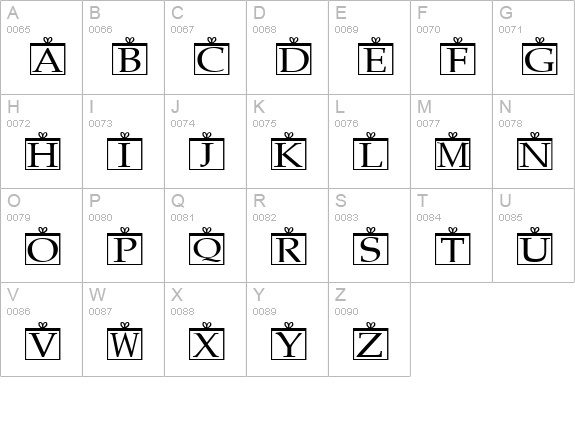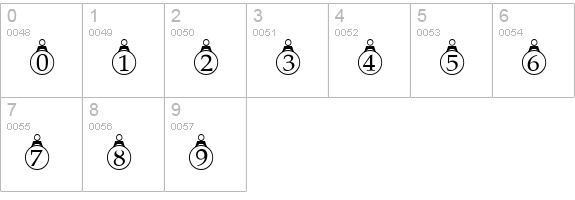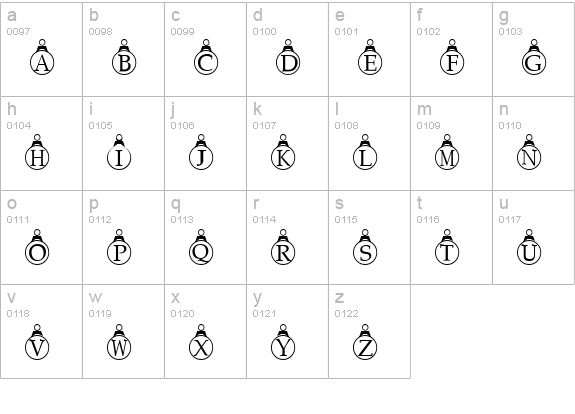
Christmas Ornaments Regular Font Details
Christmas Ornaments Regular is the standard, neutral variant in the Christmas typeface family \xE2\x80\x94 well suited to general body text, paragraphs, and standard typographic work.
Add a touch of festive cheer to your designs with Christmas Ornaments Regular font! This delightful font features a collection of charming holiday-themed ornaments, perfect for adding a whimsical flair to your projects. From jolly Santas to twinkling snowflakes, this font has everything you need to make your designs merry and bright. Best of all, Christmas Ornaments Regular font is completely free to download at FontsMarket.com. Simply head over to the website to get your hands on this festive font and start spreading the holiday spirit in your designs today. Whether you're creating holiday cards, invitations, or social media graphics, this font is sure to add a festive touch to your creations. Download Christmas Ornaments Regular font now and let the holiday magic begin!